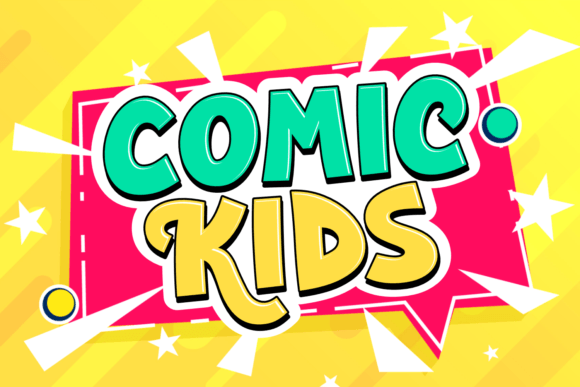
Looking for a fun, eye-catching display font that will make your designs stand out from the crowd? Look no further than Comic Kids Font, created by Situjuh.
This cartoon-style font packs a real punch, with a bold and playful design that is perfect for a wide range of applications. Whether you're creating comic book covers, designing online games, or producing classic/retro event posters, Comic Kids Font is the perfect choice.
With its distinctive style and bold, attention-grabbing design, Comic Kids Font is sure to make an impact wherever it's used. This font is perfect for school supplies, posters, movie titles, YouTube covers or thumbnails, social media page covers, and more. No matter what kind of project you're working on, Comic Kids Font will help you stand out and make a lasting impression.
But that's not all – Comic Kids Font is also incredibly versatile, making it the perfect choice for a wide range of projects. Whether you're designing for kids or adults, this font is sure to capture their attention and keep them engaged.
So why wait? If you're looking for a font that will help your designs pop, look no further than Comic Kids Font. With its bold, playful design and versatile applications, this font is the perfect choice for any project.